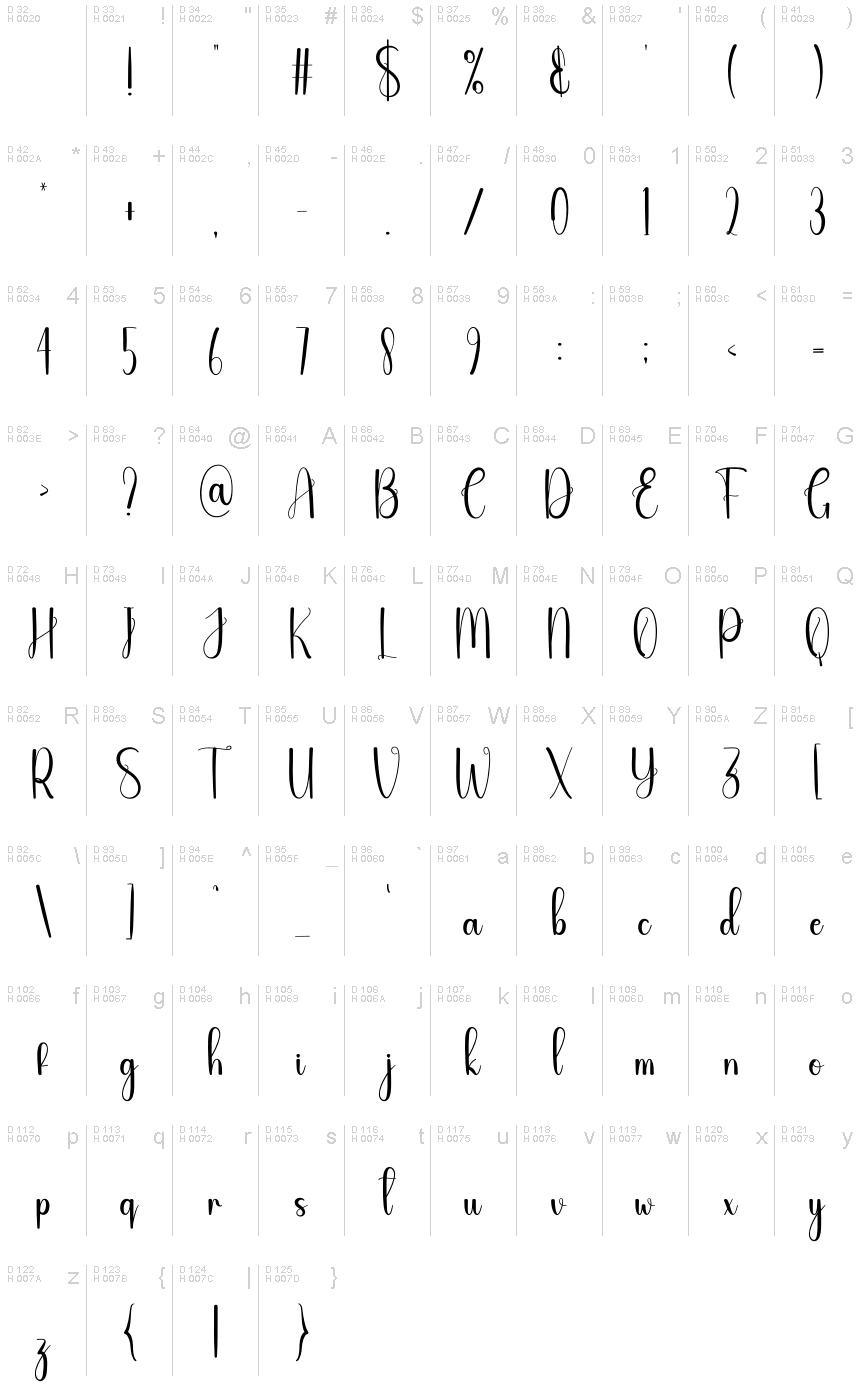
Bible Study
Bible Study is a captivating handwritten font that exudes a warm, inviting aesthetic. Crafted by designer Andi Moz, this light, condensed typeface boasts a distinctively organic and textured quality, lending an artisanal charm to any design. The fluid, elegant letterforms seamlessly capture the essence of thoughtful study and contemplation, making this font an excellent choice for devotional materials, biblical publications, or projects seeking a personal, handcrafted touch.
This versatile font shines in a variety of applications, from book covers and page headers to event invitations and custom stationery. Its refined, yet approachable style effortlessly conveys a sense of intimacy and sincerity, making it a compelling selection for faith-based endeavors or designs aimed at evoking a reverent, reflective atmosphere.